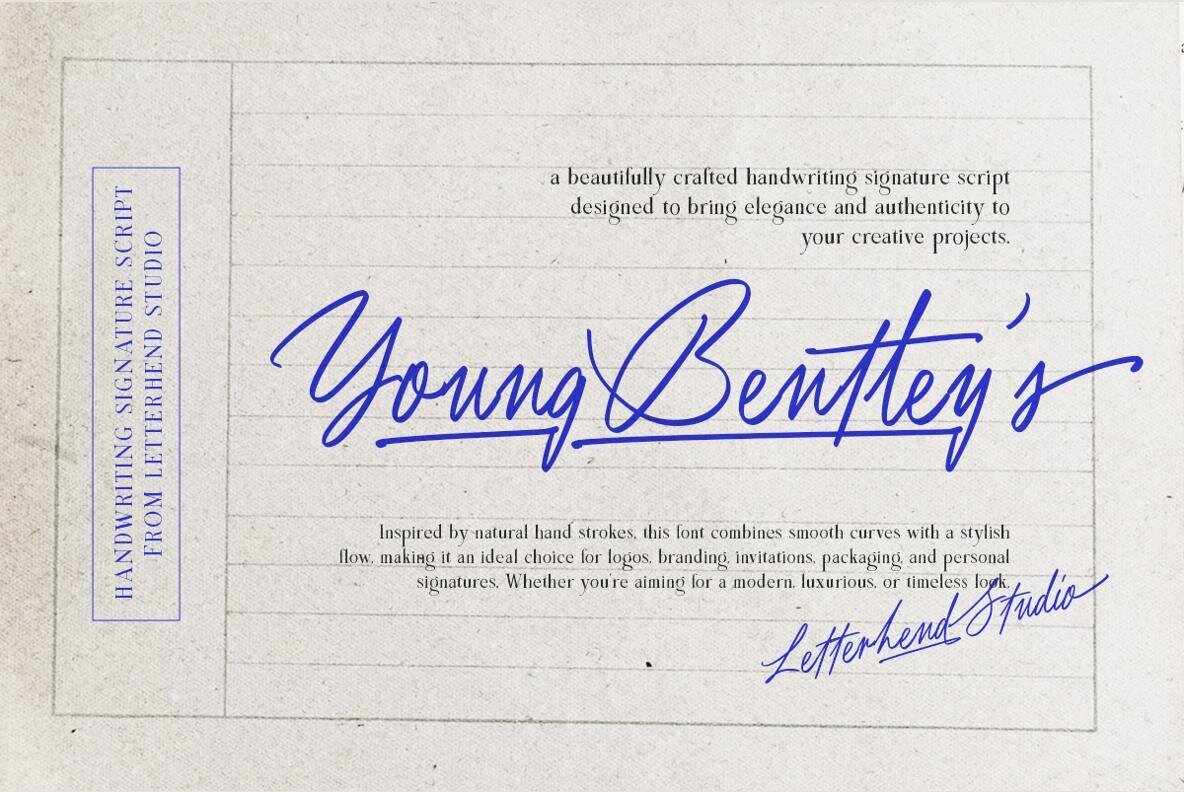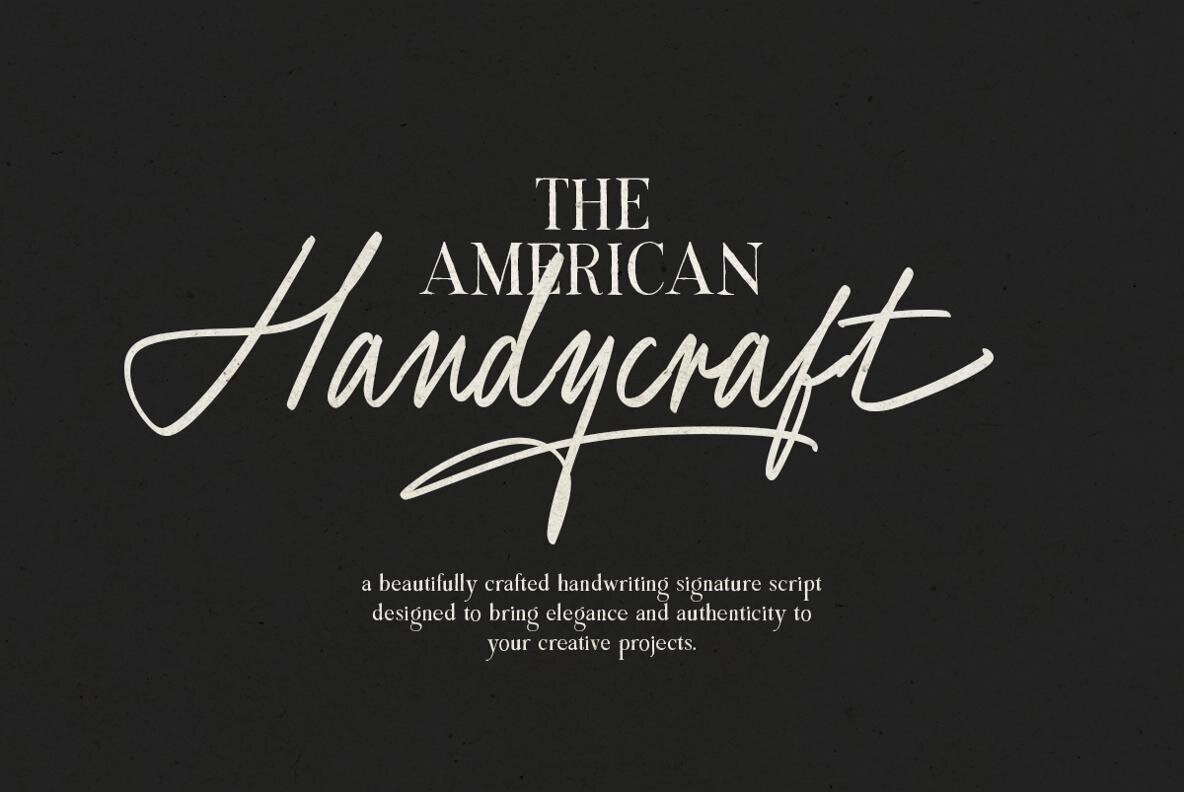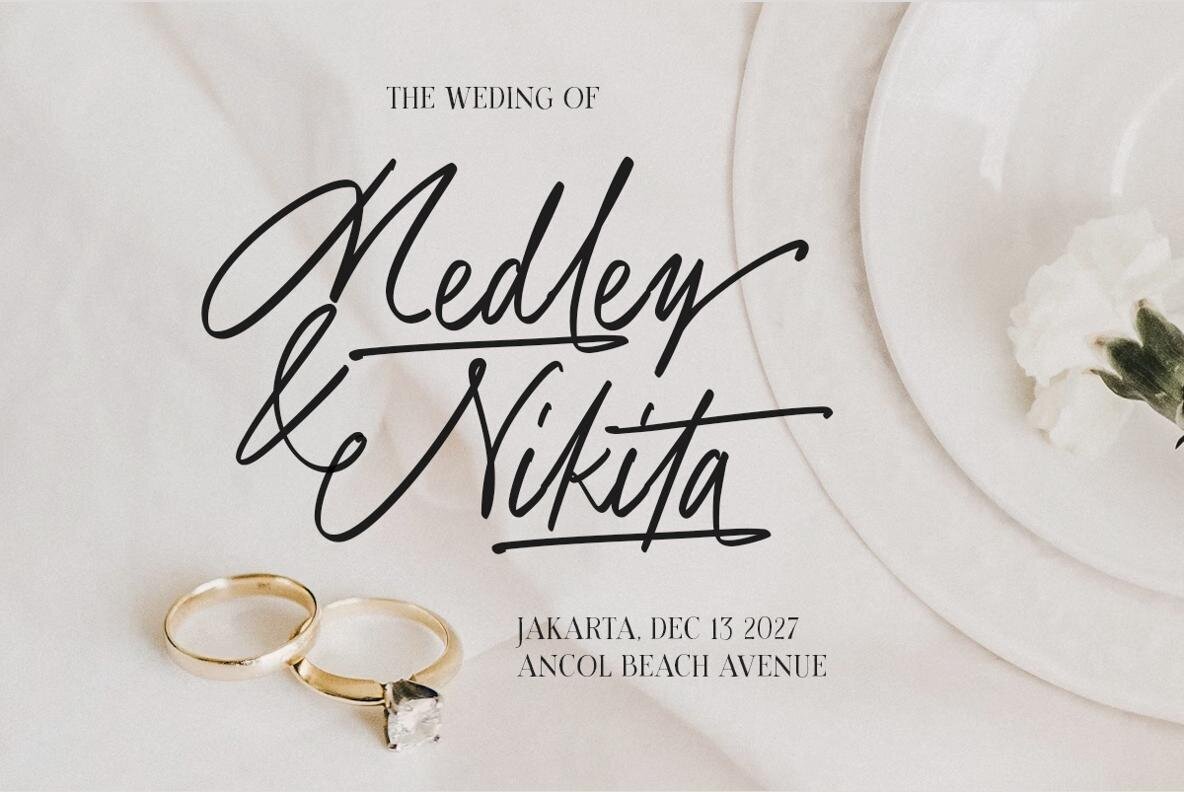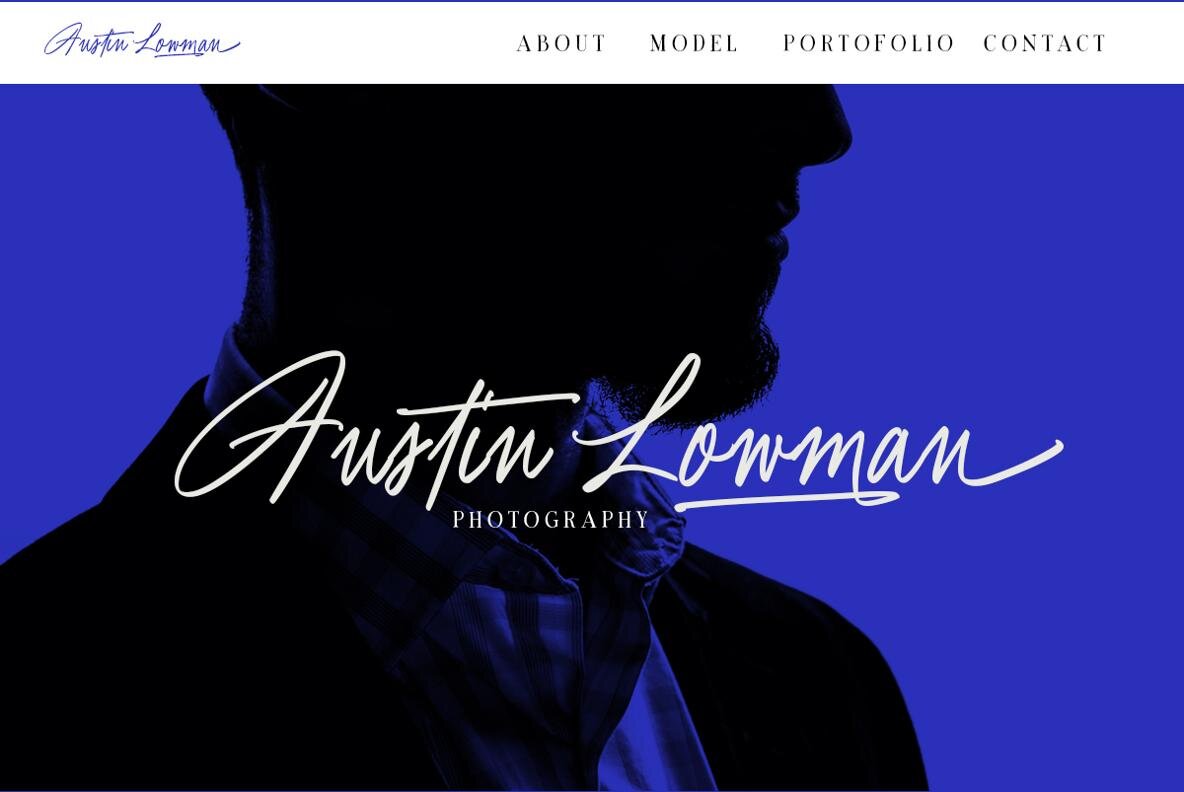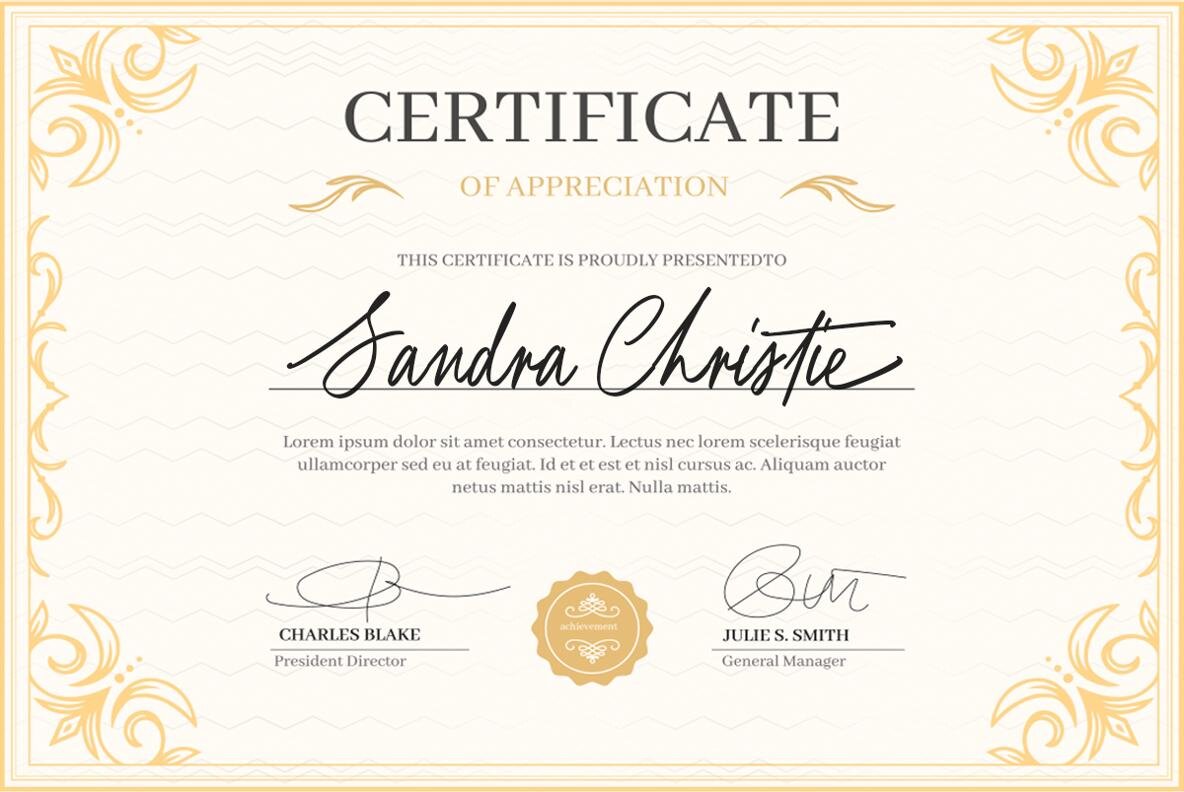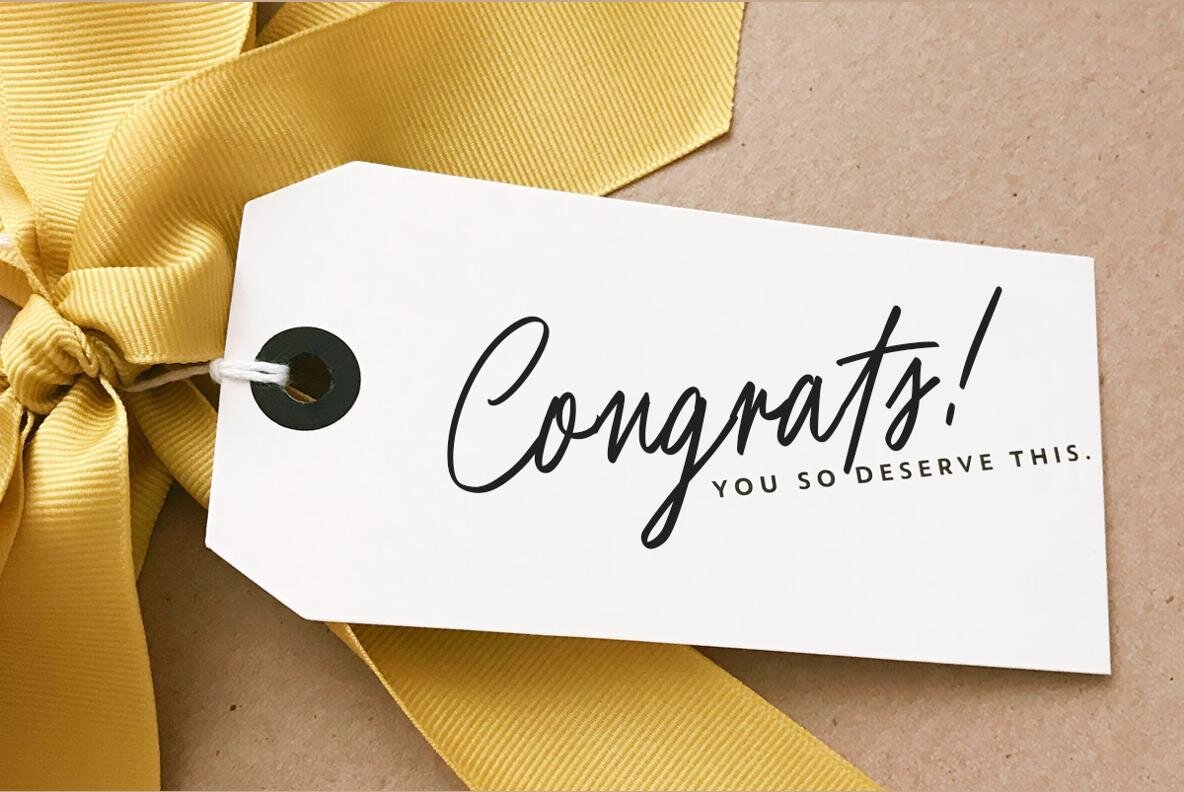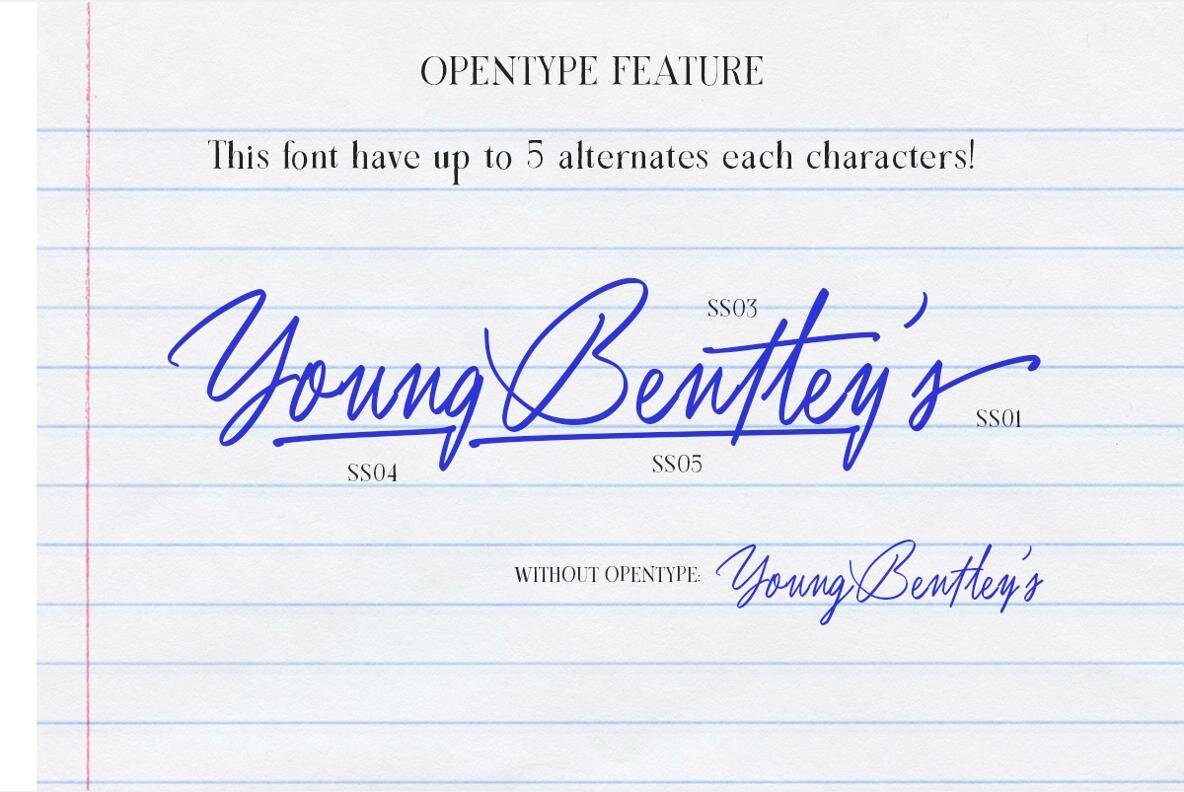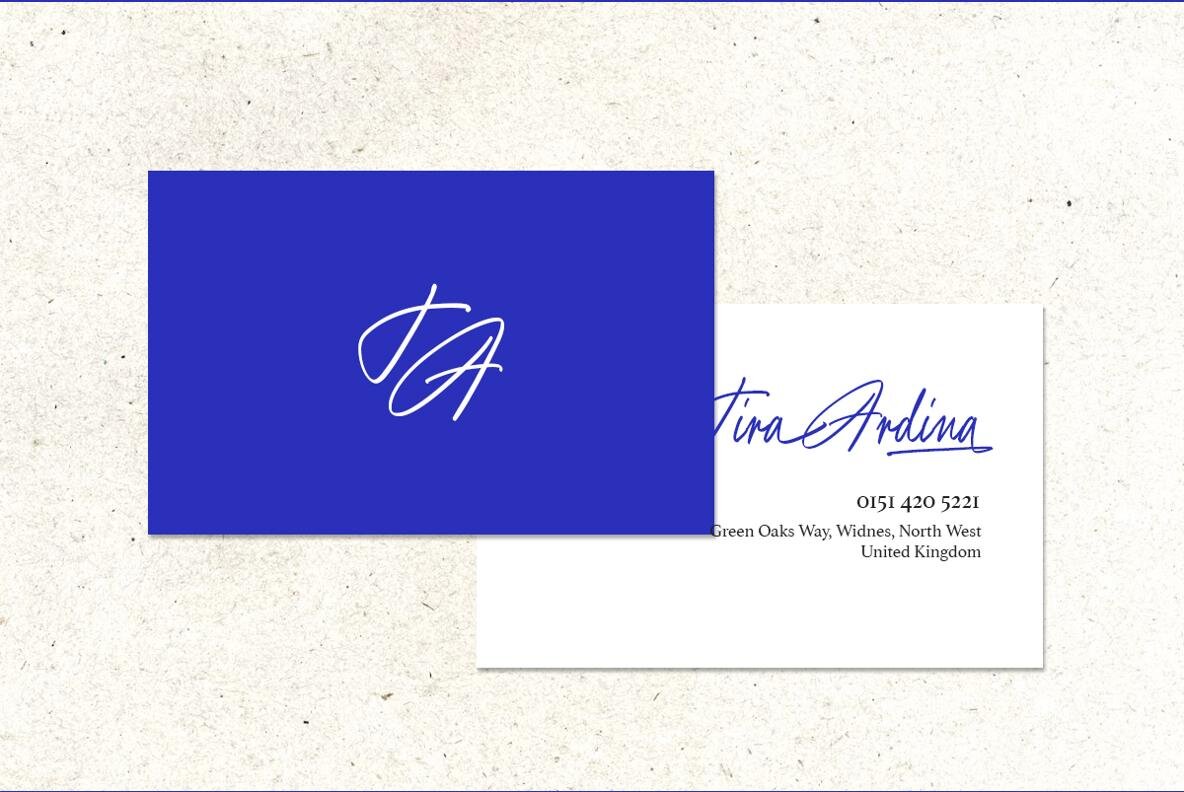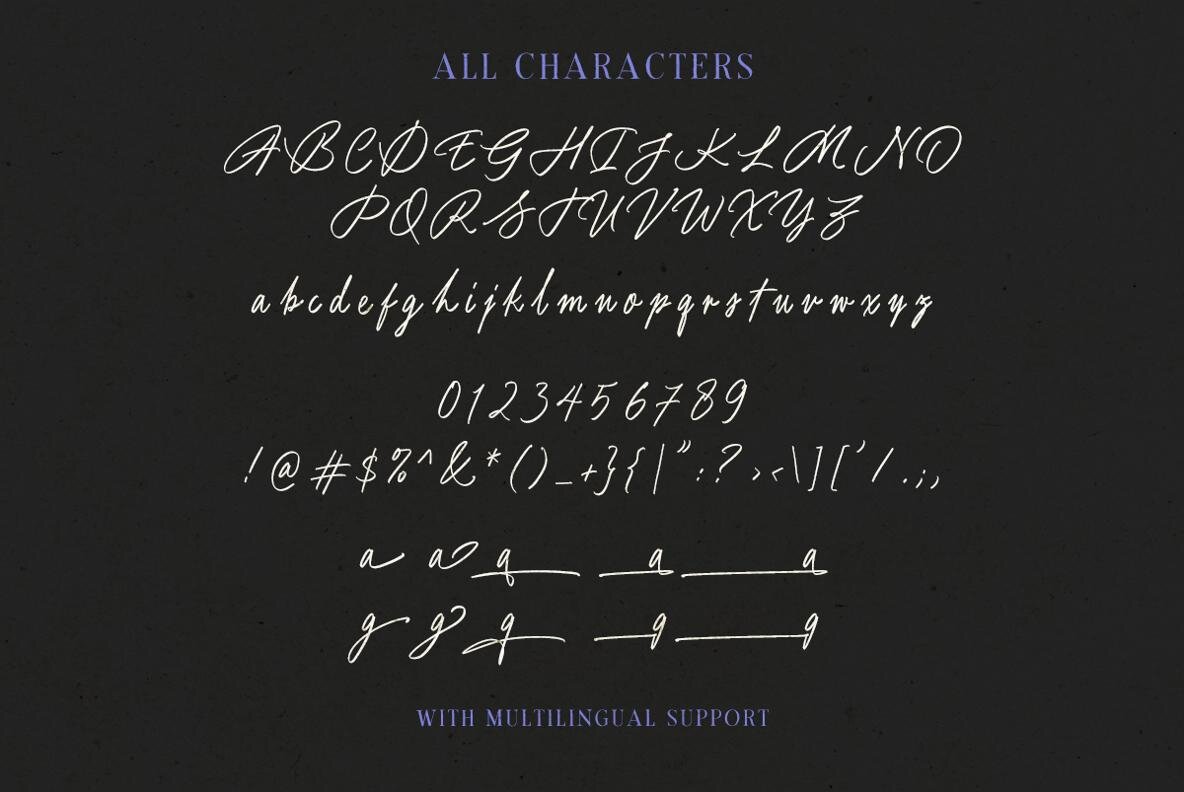
Young Bentleys Font
Young Bentley Regular
The Young Bentley's signature font encapsulates the grace of genuine handwriting with its fluid, natural curves and smooth flow. This sophisticated typeface is perfect for creating logos, branding, invitations, and packaging. It imbues each design with a modern charm and a touch of understated class, capturing the essence of authenticity effortlessly.Young Bentley's: Elegance in Handwritten Form